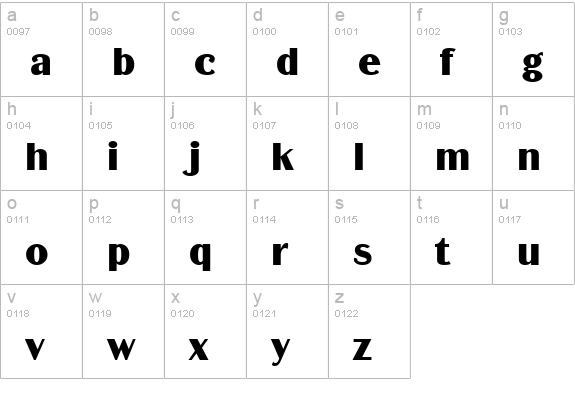
BinnerD font is a stylish and modern typeface that exudes elegance and sophistication. With its sleek lines and unique design, this font is perfect for creating eye-catching designs that stand out. BinnerD is versatile and can be used for a variety of projects, from branding to marketing materials. Best of all, BinnerD font is available for free download at FontsMarket.com. This means you can easily access this stunning font and use it in your projects without any cost. Don't miss out on the opportunity to enhance your designs with the beauty and creativity of BinnerD font - download it for free today!